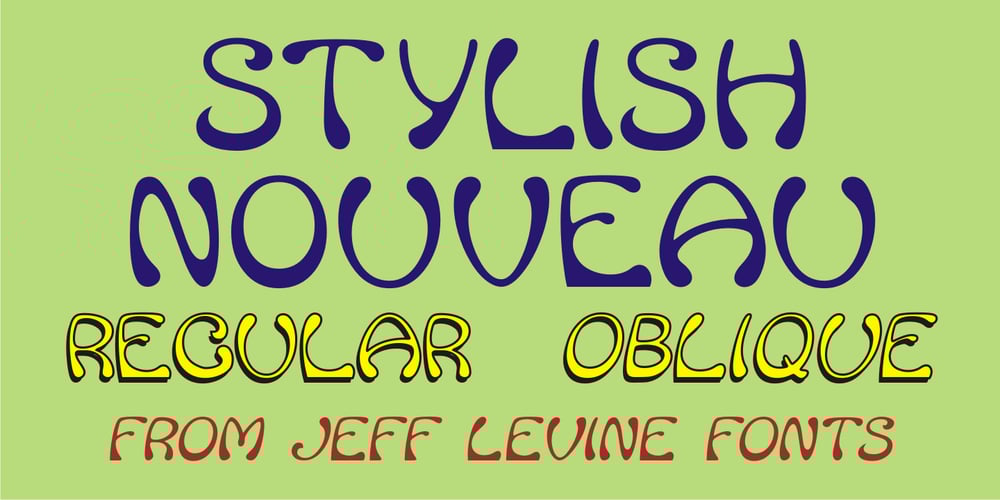
Stylish Nouveau JNL
Stylish Nouveau JNL font
Stylish Nouveau JNL Font Family was designed by Jeff Levine and published by Jeff Levine. Stylish Nouveau JNL contains 2 styles and family package options. Free form Art Nouveau hand lettering found on many early-1900s ads for various personal care items manufactured by the Colgate Company were the design inspiration for Stylish Nouveau JNL, which is available in both regular and oblique versions.